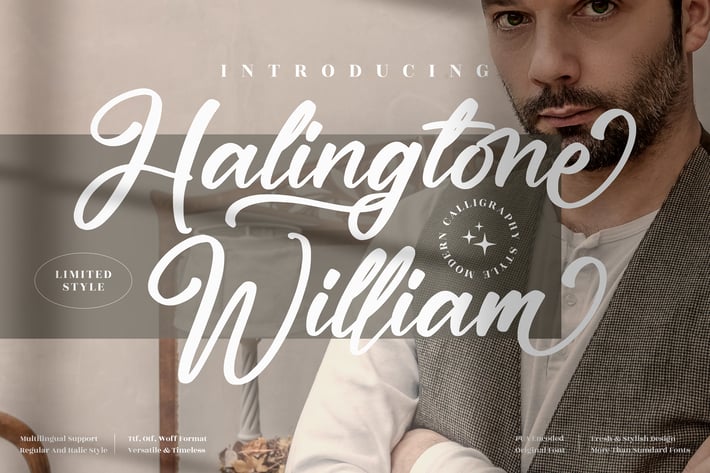
Halingtone William Modern Script Font
Halingtone William Modern Script is a stylish and elegant script font inspired by modern calligraphy. With graceful swashes and smooth letterforms, it adds sophistication and charm to any design. Perfectly balanced between timeless beauty and contemporary style, this font is a versatile choice for both personal and commercial projects.
+ Modern calligraphy-inspired script
+ Uppercase, lowercase, numbers & punctuation
+ Regular & Italic styles
+ Multilingual support
Bring timeless elegance to your designs with Halingtone William — a modern script font crafted with sophistication and style.